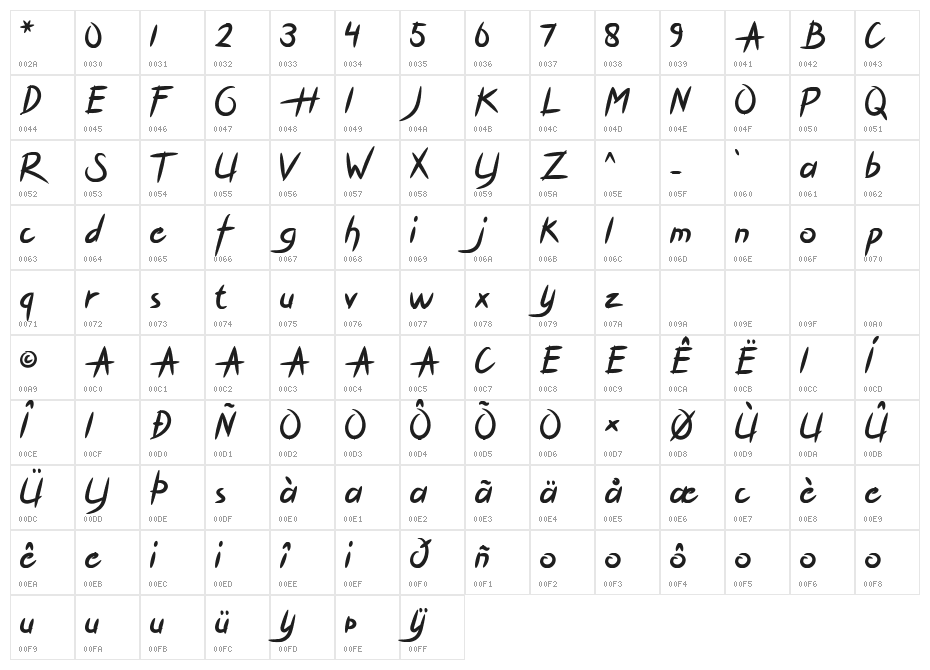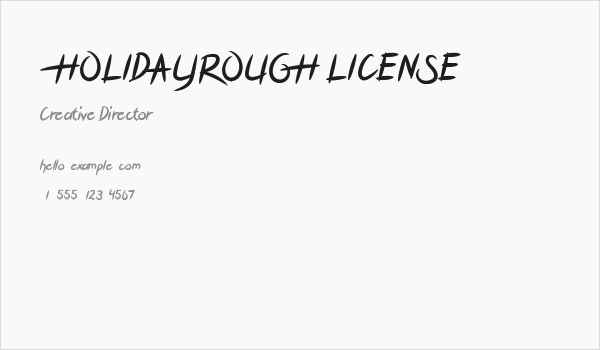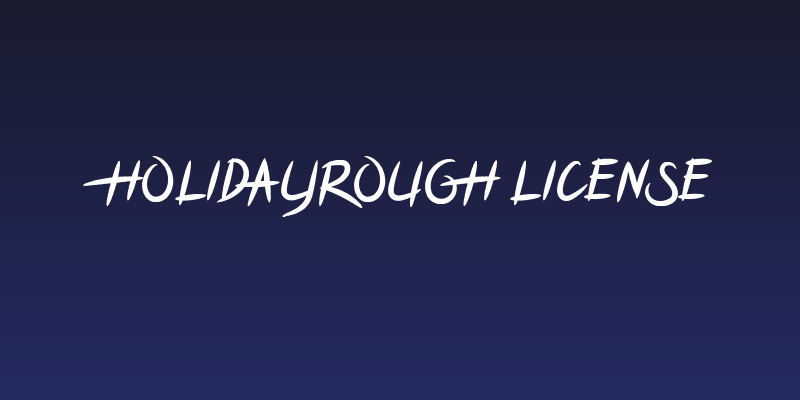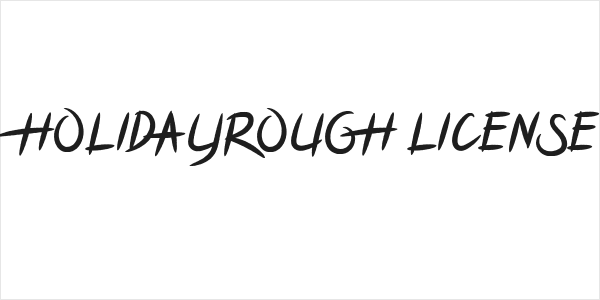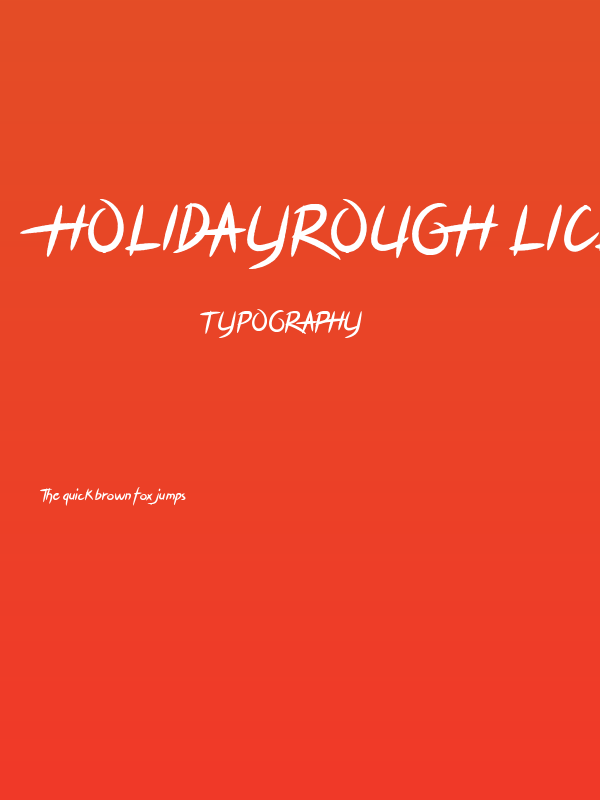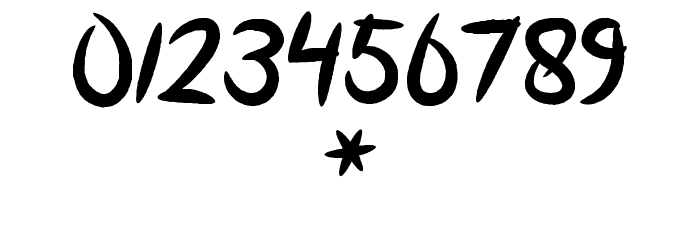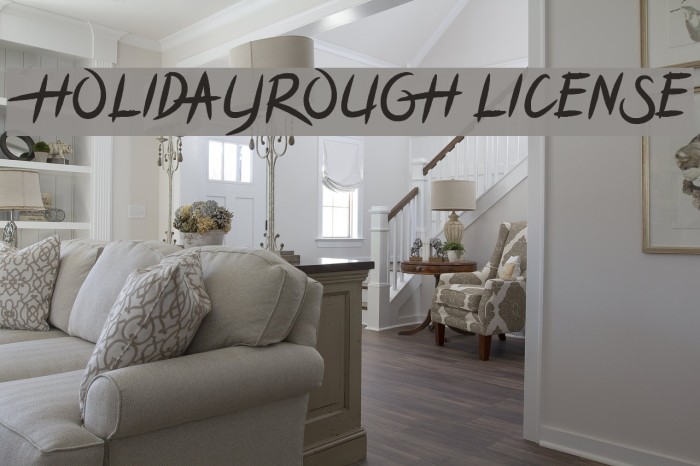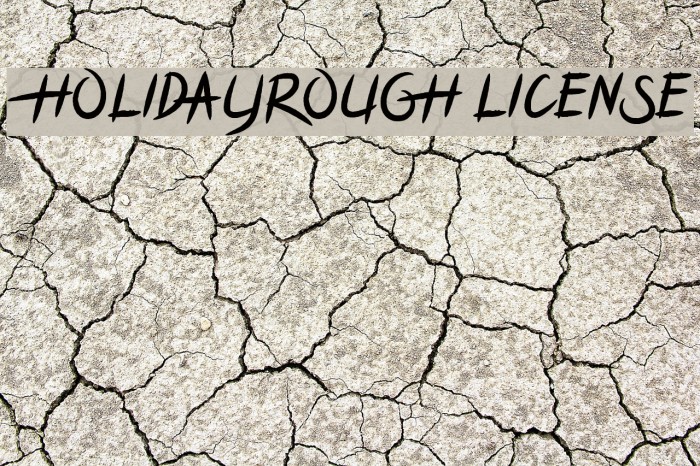
HOLIDAYROUGH LICENSE Font
HOLIDAYROUGH LICENSE Description
This font exudes a dynamic and energetic style, characterized by its bold and slightly irregular strokes that give it a hand-drawn appearance. The uppercase letters are tall and slightly slanted, while the lowercase letters maintain a consistent flow, enhancing the casual yet artistic feel. The numerals are bold and rounded, complementing the overall aesthetic. The font's playful and informal nature makes it ideal for creative projects that require a personal touch.
| Use Case | Logos, Headlines, Posters |
| Proposed Projects | Ideal for greeting cards, posters, branding projects, and any design that requires a personal, artistic touch. |